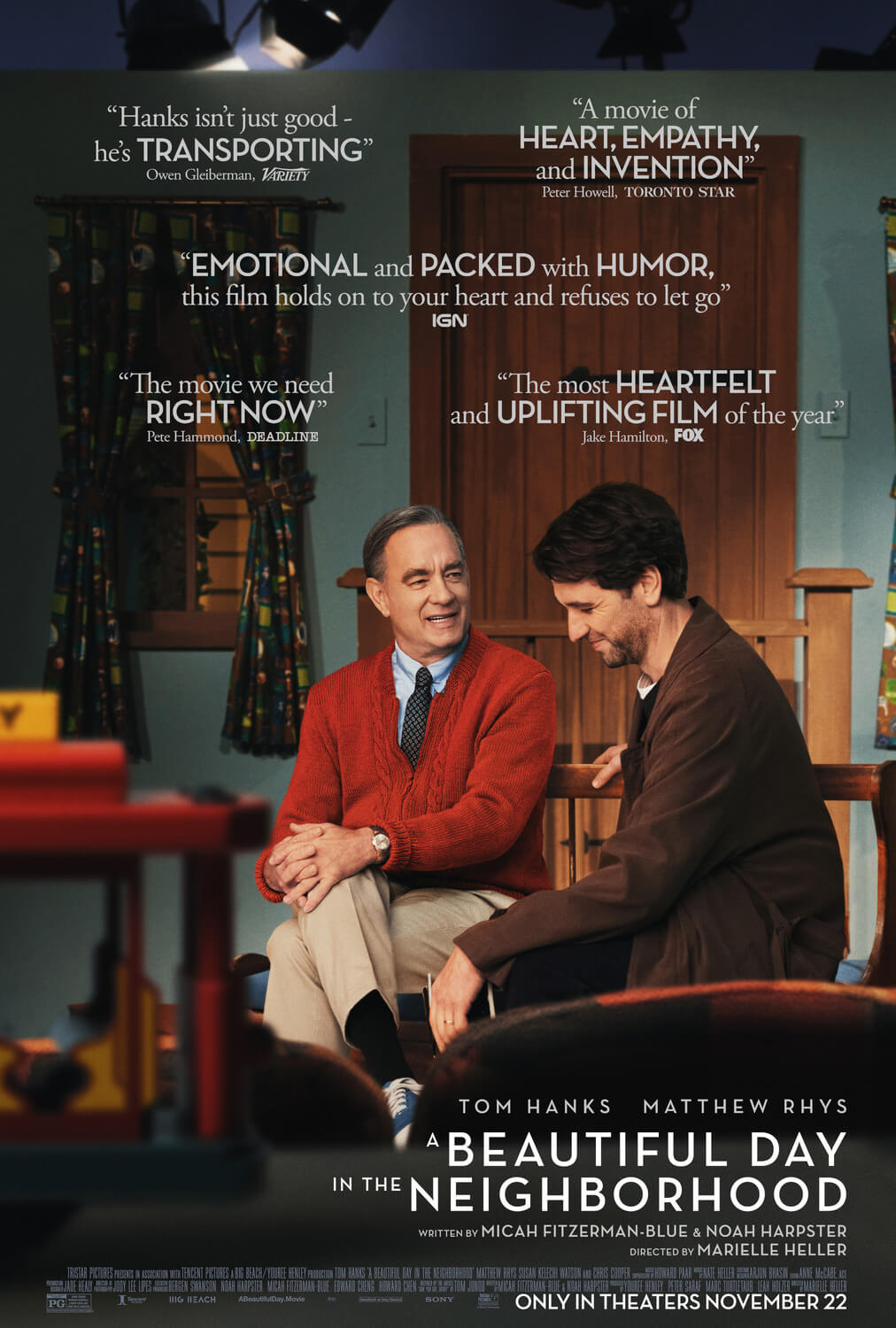
A Beautiful Day in the Neighborhood Font
DramaA Beautiful Day in the Neighborhood is a 2019 American biographical drama film directed by Marielle Heller. The film stars Tom Hanks as Fred Rogers, a beloved television personality and the host of the children's television show "Mister Rogers' Neighborhood."
The typography of the film poster combines the clean lines of Neutraface Display Bold from House Industries with the refined style of Adobe Garamond.